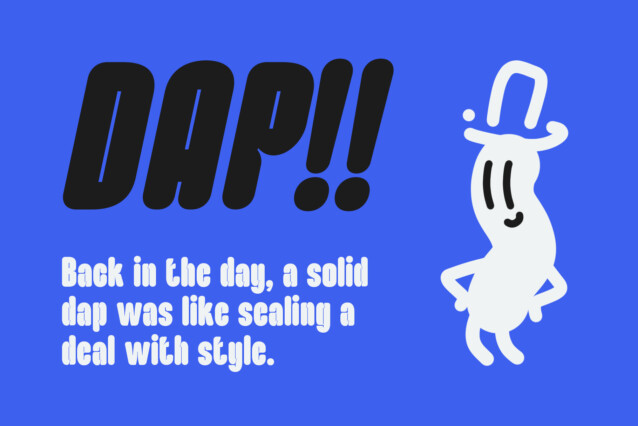
Wadeline Rounded Font
Wadeline Rounded Font is a bold, condensed sans-serif font that combines strength with a soft, approachable charm. Its thick, clean strokes and compact form make it an ideal choice for designs that need to make a strong visual impact, while the rounded edges offer a sense of warmth and accessibility. This font strikes a perfect balance between modern confidence and friendly appeal, making it a versatile addition to any design toolkit.